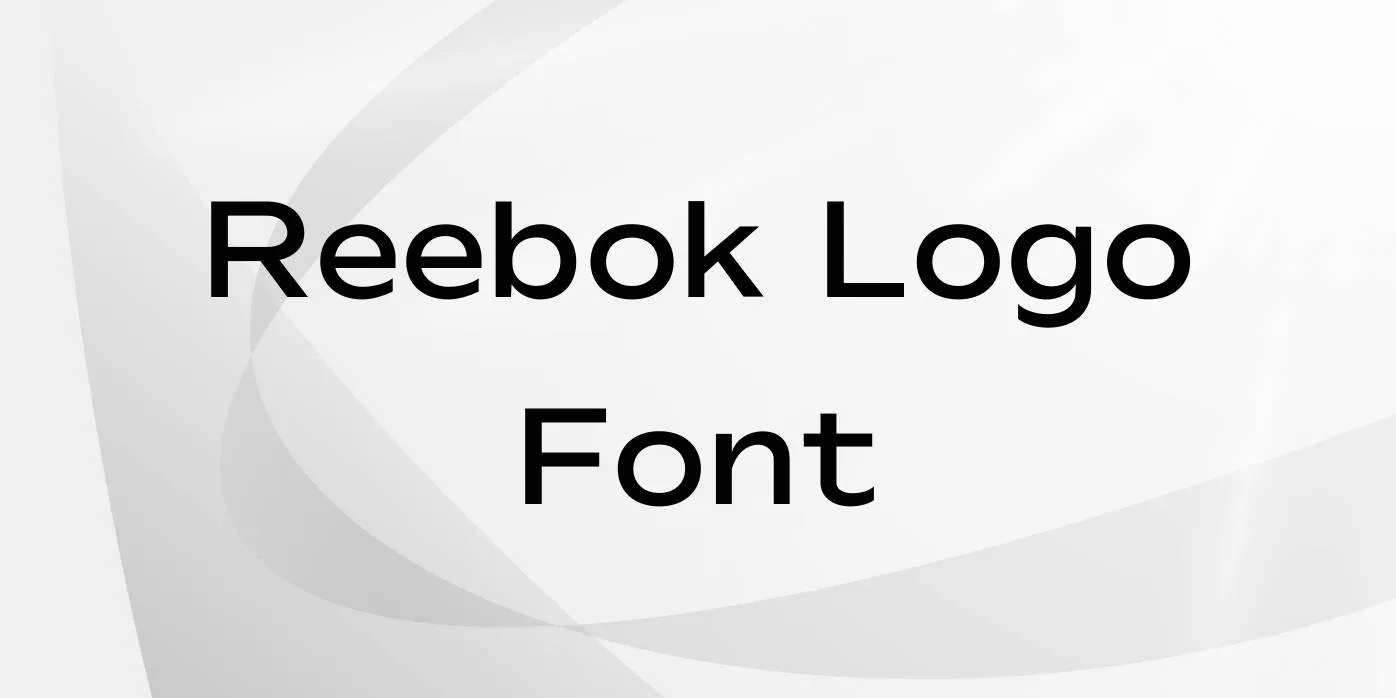
Reebok Logo Font
Reebok Logo Font has been used by Reebok since 1986. The font is based on the ITC Avant Garde Gothic typeface. Reebok has used this font in many of its advertising campaigns and product packaging. The Font is very distinctive and easily recognizable.